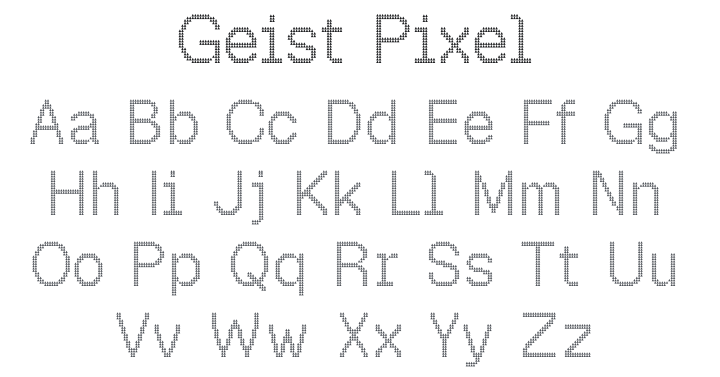
Geist Pixel Font Family
About Geist Pixel
Geist Pixel is a pixel typeface designed to complement the Geist font family, built on the same principles of minimalism, precision, and simplicity that define the universe. Conceived as a display font, it pays homage to the pixel font genre while expressing the brand’s future-forward, visionary spirit, and is available in five stylistic variants for a wide range of applications.